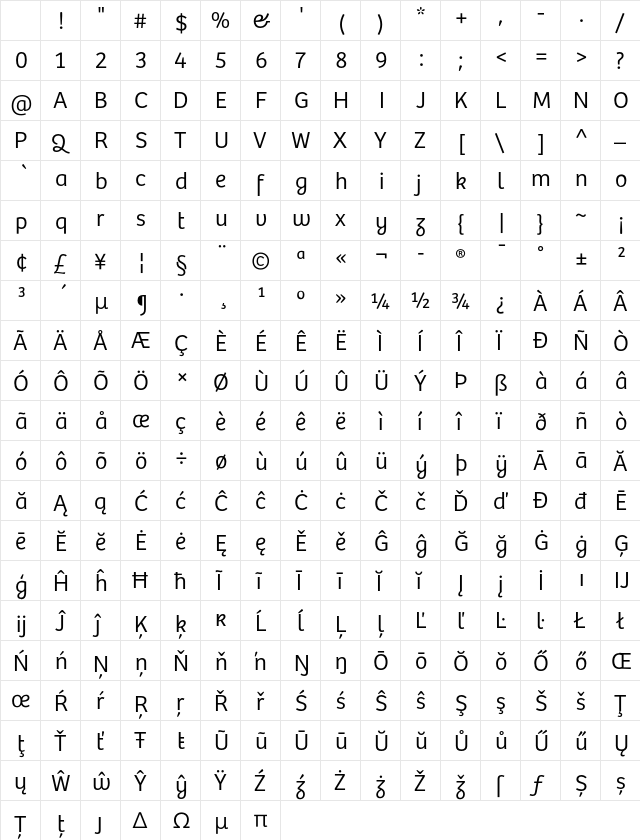
Complete Bree Light glyph index. Displaying only characters natively supported by Bree Light font.
Bree is a composed and adaptable typeface that performs quietly and consistently across a wide range of design contexts. Its slender proportions lend an understated elegance to any composition.